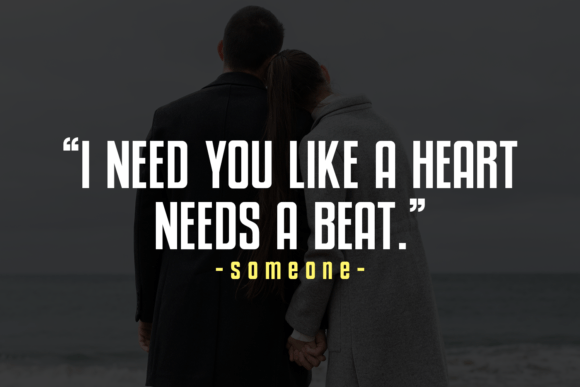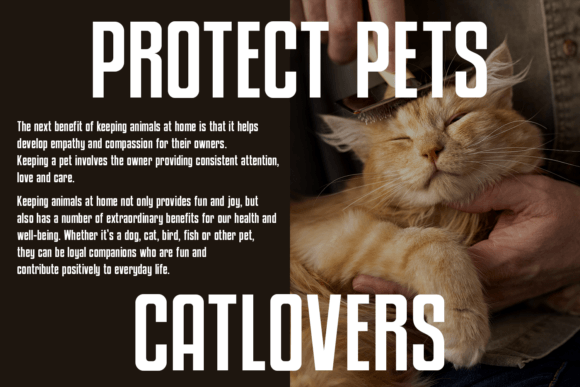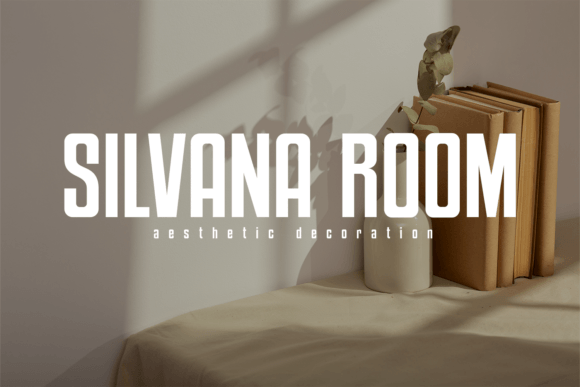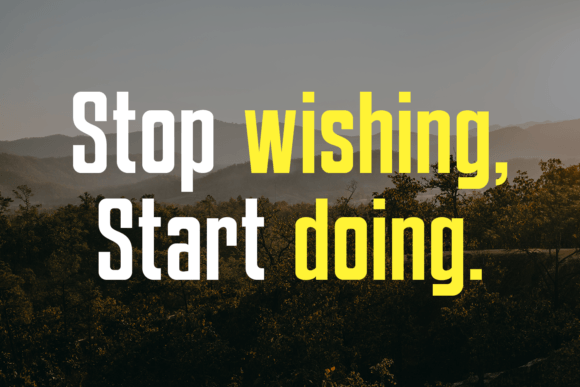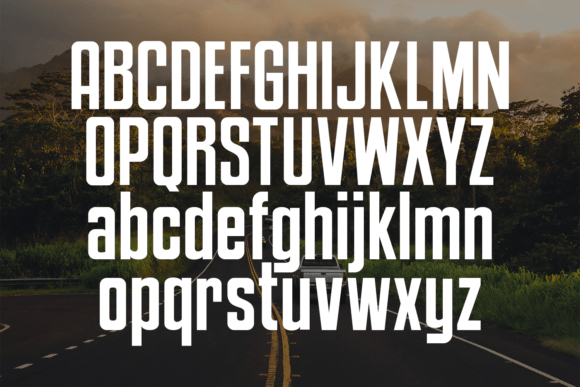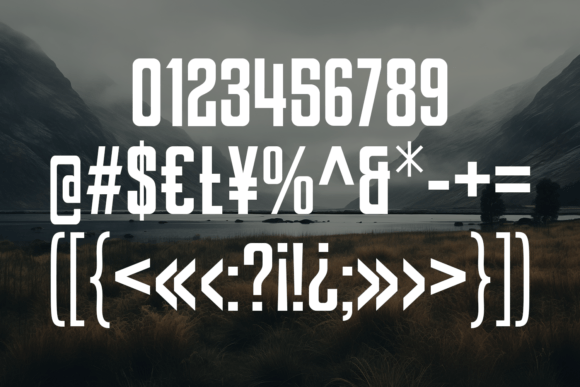
The Birth of a Bold Typography
Have you ever found yourself stuck in a creative rut, yearning for a spark to ignite your next project? The moment when everything clicks into place, and your vision begins to take shape? That’s exactly what happens when you discover the Broday Font, a sans serif masterpiece that embodies the perfect blend of simplicity and boldness.
As a designer, you’re constantly on the lookout for that special something to elevate your work. The Broday Font is more than just a typeface – it’s a powerful tool that can transport your message, convey professionalism, and leave a lasting impression. Whether you’re crafting a film poster, designing a logo, or creating a headline, the Broday Font is the perfect companion to bring your ideas to life.
Broday Font Key Features
- Font Family: Broday is a sans-serif font family designed to be modern and clean.
- Character Count: The Broday font family includes over 600 glyphs, covering a wide range of languages.
- Font Sizes: Available in 6 weights, ranging from Light to Black, with corresponding italic and oblique styles.
- Resolution: Suitable for use at high resolutions, making it ideal for print and digital applications.
- Unique Characteristics: The Broday font features a unique blend of geometric and organic elements, resulting in a distinctive and modern aesthetic.
Broday Font Review
Overall, I was fairly impressed with the Broday Font, a modern sans-serif font that seems to be geared towards digital use. Here are some things that stood out to me:
- ✨ The font’s weight and line spacing are well-balanced, making it easy to read on screens.
- ✨ The font’s x-height is quite high, which makes it more legible at smaller font sizes.
- ✨ The font has a clean, minimalist aesthetic that makes it a good choice for digital interfaces.
- ⚠️ The font’s italic and bold styles feel somewhat disconnected from the regular weight, which can make it harder to create consistent typography.
- ⚠️ The font lacks a true thin weight, which can make it harder to create subtle hierarchies in digital interfaces.
- ⚠️ The font’s lowercase letters feel somewhat condensed, which can make it harder to read in certain contexts.
Overall, I would say that the Broday Font is a solid choice for digital use, but it may not be the best fit for more complex typography projects.
The Broday Font is perfect for:
- Designing retro-themed posters and flyers.
- Creating unique and eye-catching social media graphics.
- Adding a vintage touch to your branding and marketing materials.